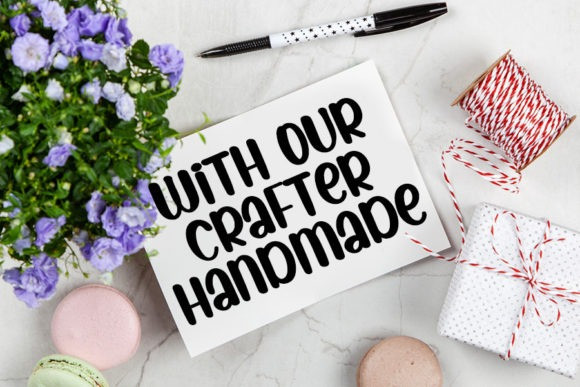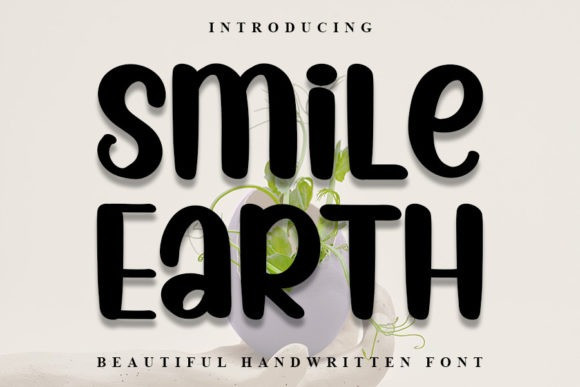
Smile Earth Font
Smile Earth Font is a stylish handwritten font with a contemporary atmosphere and impeccable form, inspired by a timeless classic calligraphy. Balanced and varied, this font was designed to enhance the beauty of your projects.